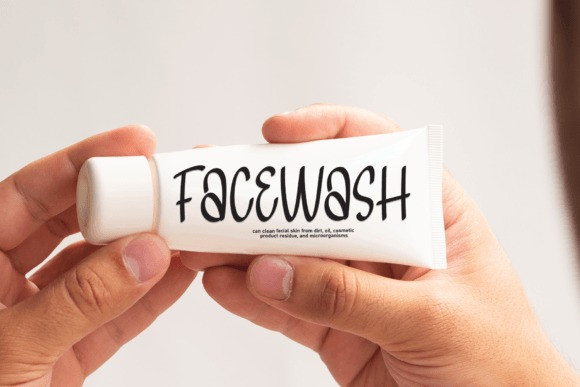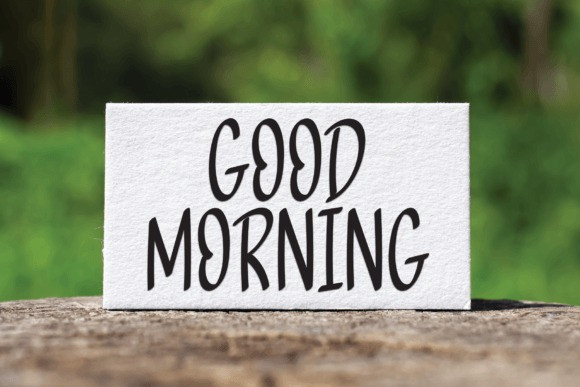
Snowing Christmas Display Font
Snowing Christmas Display Font is a sweet and friendly handwritten font. Cute and versatile, this font is ideal for writing wedding invitations, cards, or any other design that might need a fun touch!